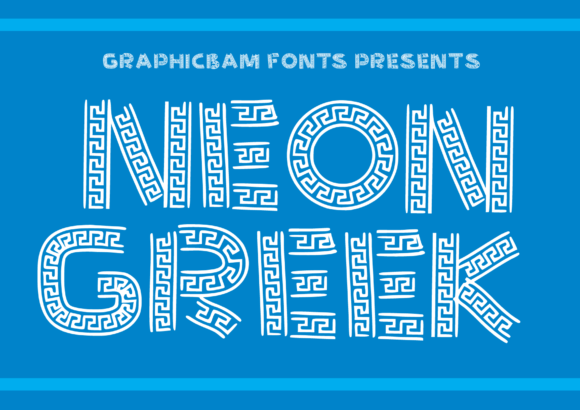
Step into the neon-lit realm of digital aesthetics with the Neon Greek Font – a captivating display typeface that will ignite your designs with its vibrant luminescence. Inspired by the allure of glowing cityscapes, this font exudes an irresistible charm that will leave your audience mesmerized.
Neon Greek is not just a font; it's an expression of your creativity, an artistic tool that transforms ordinary words into radiant masterpieces. Picture your designs adorned with this electrifying font, commanding attention and leaving a lasting impression on all who behold them.
With its striking, modernistic style, Neon Greek is the perfect choice for web designs that demand attention. Unleash its potential in crafting eye-catching headlines, vibrant logos, or captivating social media graphics. Its luminous presence will ensure your messages shine brighter than ever before.
Let Neon Greek illuminate your print projects as well. Imagine flyers and posters that radiate with its neon brilliance, drawing curious eyes from across the room. Its captivating aura will transform your marketing materials into irresistible beacons of information, leaving a lasting impact on potential customers.
Neon Greek is not just a font; it's an adventure into a world where creativity knows no bounds. It's a font that pushes the boundaries of visual expression, allowing you to create designs that resonate with your audience on a deeper level. Embrace the power of Neon Greek and witness the transformation of your designs into mesmerizing works of art.